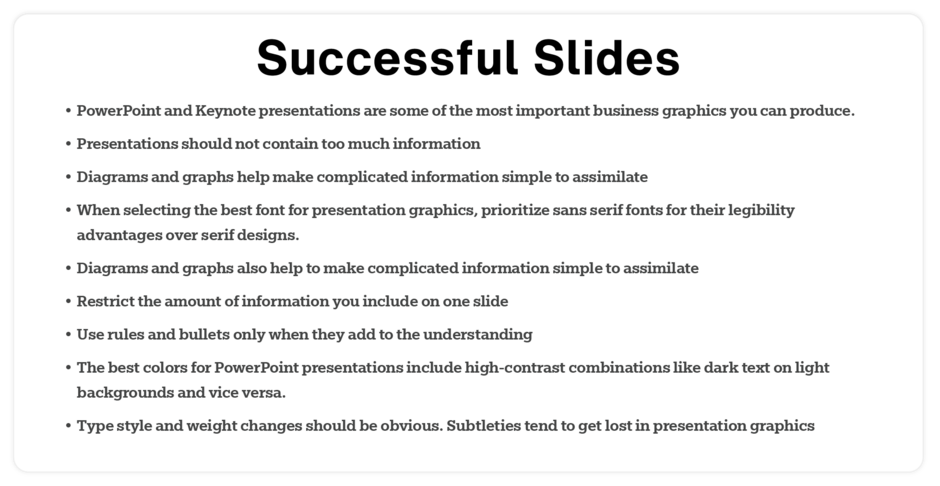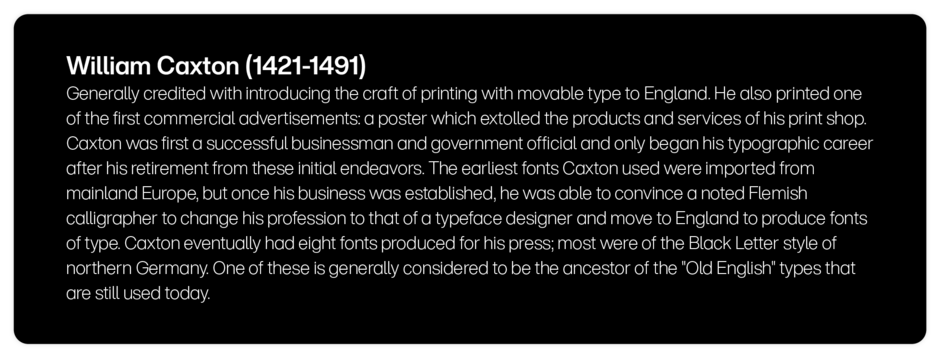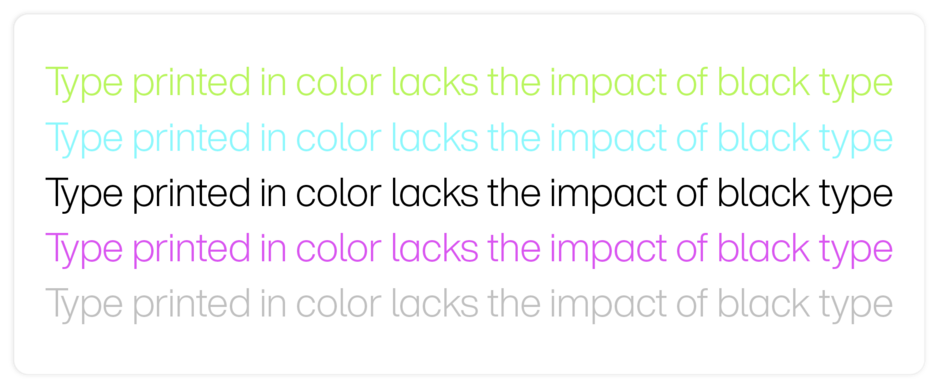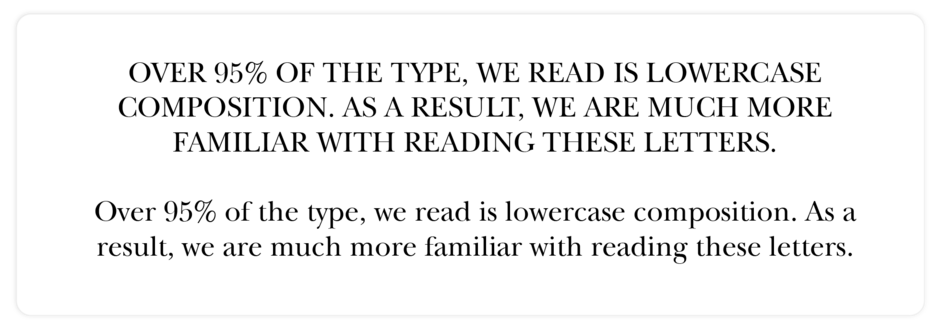
Manual: Answering Font Pesky Questions
“It’s easy to be a designer. All you need is a computer and a copy of Canva™.”
Yeah, right… You know better than that.
Often, however, bosses and co-workers critique design without understanding. Your challenge is how to clearly explain good design principles that seem natural to you but arbitrary co-workers or your boss?
Although you can’t stop folks from questioning your work, you can control how you respond to them. You can also use this as an opportunity to educate – and to reaffirm why you’re on the job.
Simple strategies can help you with this process:
- Be businesslike around businesspeople
- Anticipate questions
- Be able justify your decisions
Be Businesslike
Bosses tend to be businesspeople and, by definition, they have more power than you. Treat yours with respect. Even if you think suggestions to set the company quarterly report in Hobo is laughable – don’t.
Anticipate Questions
If you often questions about your typeface choices, be prepared. When making typographic decisions, have clear reasons ready. Trying something new means expecting challenges. Anticipate design questions to handle them confidently.
Justify Your Decisions
The key to anticipating questions is having answers. Justify your typeface choice with sound typographic reasons, not personal taste, to satisfy your questioners – whether it’s en dashes or oldstyle numbers in text.
What follows is just a handful of typical questions – and how you might handle them.
“Why not put all that information on one slide?”
You think: Only poor presenters cram their slides with copy, so they won’t have to think on their feet.
A better answer might be:
Too much text makes slides hard to read and weakens the presentation’s impact. Slides should highlight key points and support the speaker. Cluttered slides with over five bullet points or long text lines distract rather than emphasize, reducing effectiveness. Keep slides clear and focused to enhance communication.
“Why can’t we use white type against a dark background?”
You think: Reversing type out of a dark background is about as sound an idea as skating on pond ice in April.
A better answer might be:
Reverse type is harder to read than dark type against a light background; studies have also shown that readers don’t like to read reverse type. It can sometimes be effective to use reverse type for a headline, but this normally demands special handling to make it work at all.
“Why can’t we put the text copy in color?”
You think: Because it will look cheesy and amateurish.
A better answer might be:
Type printed in color lacks the impact of black type. Strong contrast between text and background is crucial, especially at small sizes. For readability and effectiveness, words must stand out clearly, and no matter how bright, color is always paler than black.
“Why can’t we set this in all caps?”
You think: Only if I want to replicate Trajan’s Column.
A better answer might be:
Over 95% of the type we read is lowercase composition. As a result, we are much more familiar with reading these. Headlines set in lowercase take up less space than headlines set in all-capitals – up to 30% less space. Not only is page and screen real estate used more efficiently, but fewer eye movements are required to take in the same amount of information.
Here’s another quote. “As a designer, if you’re not occasionally annoying people by stubbornly sticking to your guns, you’re not doing your job.” Jeffrey Zeldman
While sticking to your guns is important, doing so without annoying people is equally so.